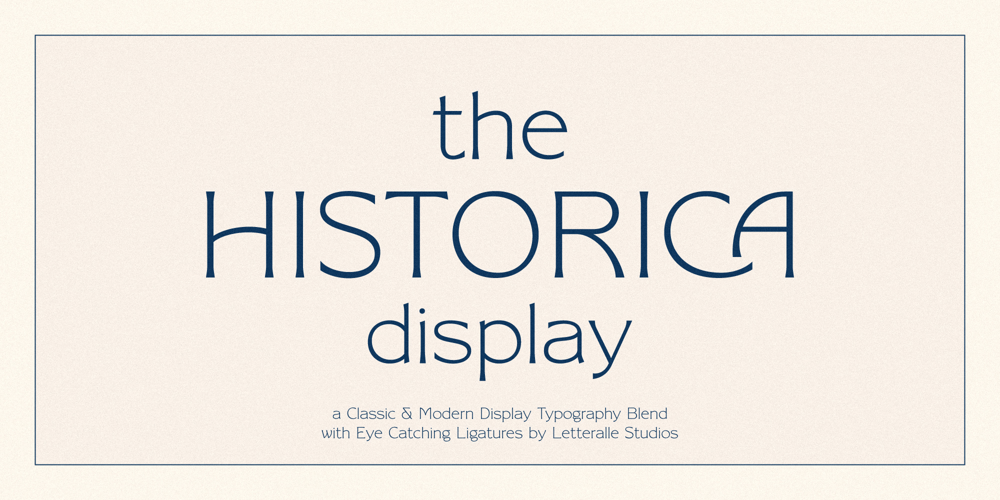
Historica Font Family was designed by Annas Alam Yahya and published by Letteralle. Historica contains 1 styles and family package options. Introducing, Historica! the perfect font for those seeking a balance between classic and modern design. This display font boasts a unique blend of traditional and contemporary elements. With its abundance of ligatures, Historica offers endless opportunities for creativity and customization. Whether you’re designing a logo, creating a menu, fashion, merchandise, poster, book cover, magazine, or crafting any other type of branding material. Historica is super versatile and can bring a unique touch to any project. So if you want to make a statement and stand out from the crowd, give Historica a try!